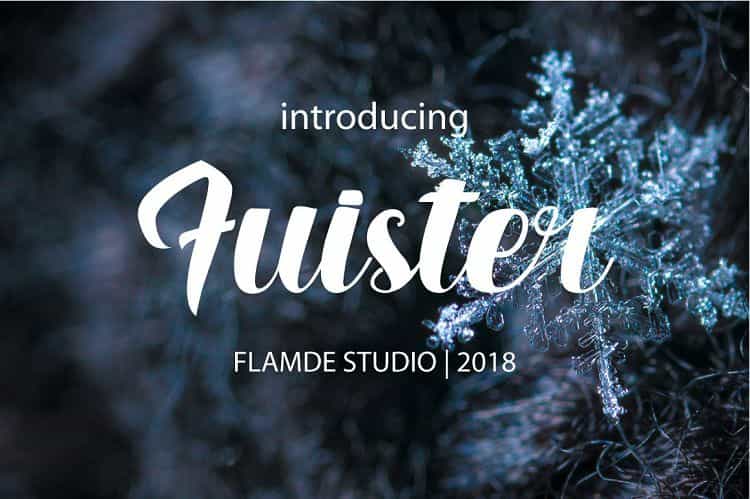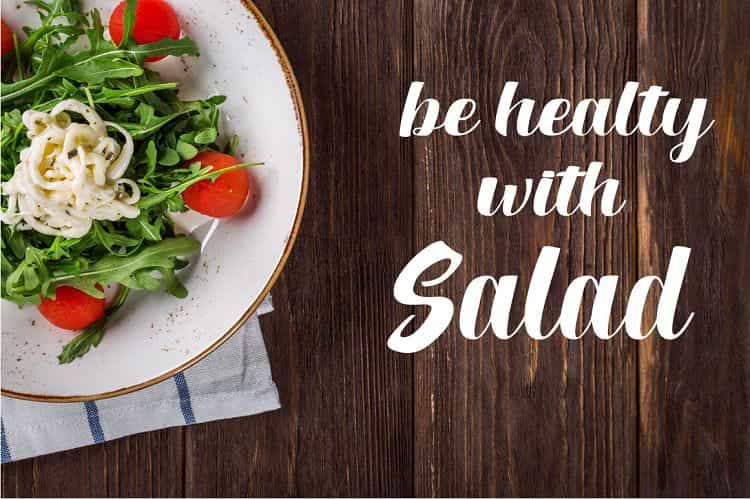
Discover Fuister Script Font, part of the Brush Calligraphy collection—a versatile and unique font perfect for adding a personal touch to your projects. Download it for free and enjoy crafting designs with style, from invitations to social media posts. This font is available exclusively for personal use, giving you the freedom to create without limits. Unlock your creativity with Fuister Script Font today!
Introducing Fuister Font. It is created and shared by Flamde Studio. This font is perfect for logos, clothes, magazines, posters, quotes and many other things.